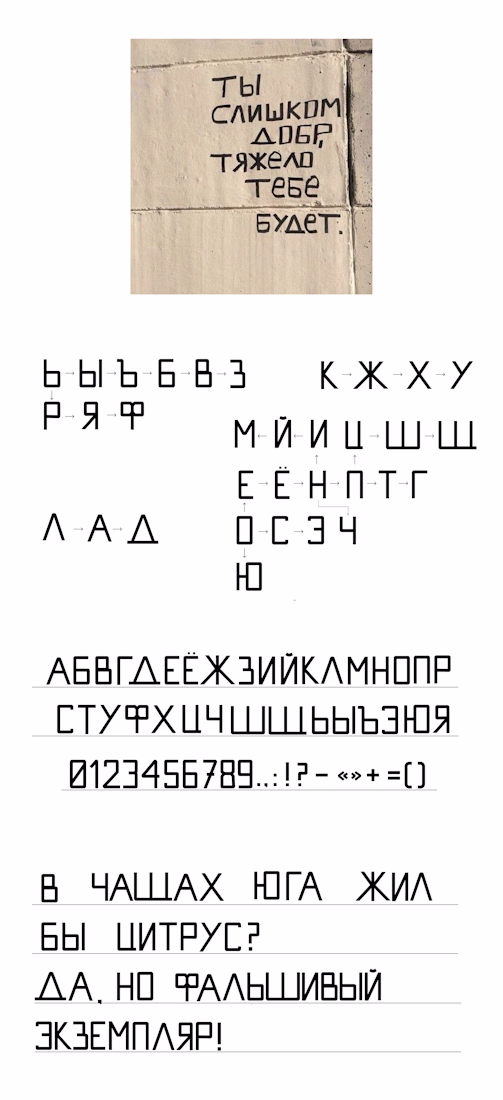
How important is the custom typeface? Custom fonts are my favourite way to add personality to a brand identity, and I'm really enjoying creating handwriting typefaces at the moment. After sketching on paper and then bringing my forms into Procreate, I then go on to vectorise in Illustrator. For simpler fonts, I use Fontself to set up my fonts. If you've not made a font before, it's one of the most enjoyable processes (and handwriting is a great place to start as you don't have to think about matching your serifs or perfecting your line weights). What's your favourite type project at the moment? I'm noticing more and more messy/scrawly/scratchy fonts in brands and online. Is this another example of how we're becoming more drawn to the handmade?
Handmade type really does add a different kind of personality. The imperfect bits are usually what make the brand feel memorable.
for sure!! I am always drawn to handwriting fonts and hand drawn brand elements etc.
adorable, i love the truly human touch of a typeface that's handwritten!
This is such a cute font and I think custom typefaces can add a very personal touch to a brand.
thank you so much, and 100% agree! they definitely don't look sleek or professional, but way more 'human' and personable.
Hand made fonts are considered unique and though not always as flawless as computer fonts they give a personal atmosphere
for sure, definitely best for more 'personable' brands that don't need to look as modern or professional.
the paper-first step is why they feel human
good font for kids book or printing stuff
OMG this font its made to give personality to anyone using it! lovely font😍
A custom typeface can give a brand a distinctive voice and make it more recognizable across its touchpoints. It becomes part of the identity, not just a visual detail.
My favourite recent type project started with a photograph of a handwritten phrase I found on a wall. I used the existing letters as a foundation, analysed their construction, and designed the missing Cyrillic characters, numbers, and punctuation while preserving the personality...
I love this!! I can imagine it is really satisfying to design for the Cyrillic alphabet because it's so geometric. Is this available to use somewhere? I'd love to test it out! I've been collecting photos of handwriting I find on my walks (usually it's lost homework/shopping...
Thank you so much, this made me smile! 🥹 It’s actually a lettering project I created in Figma, so it isn’t an installable font yet — but knowing you’d like to try it makes me want to turn it into one!
I love your idea of collecting handwriting on your walks. There’s something so...
I can't imagine the level of focus and attention that goes into that
The sketch-to-Procreate-to-Illustrator pipeline makes sense for keeping the hand feel intact, and Fontself for the simpler builds is a smart shortcut so you're not over-engineering type that doesn't need full font production. On the scrawly/handmade trend, I'd guess it's partly...
I think custom typefaces are extremely important ! They immediately evoke humanity in an identity and can connect in ways standard typefaces won’t, even if it’s a great type choice… Type selections and designs that are clean and structured can easily be dumped into the AI-generated bucket but organic forms can’t.